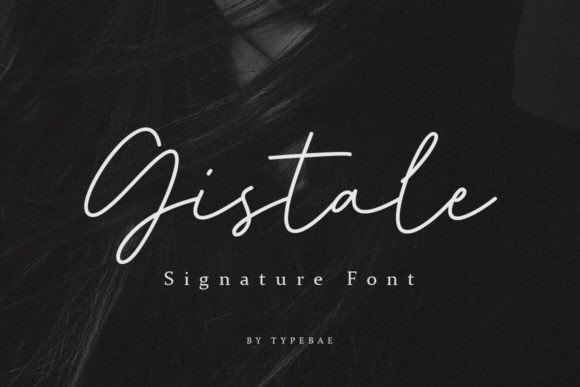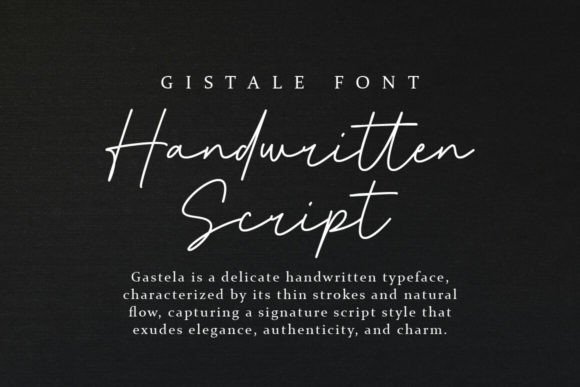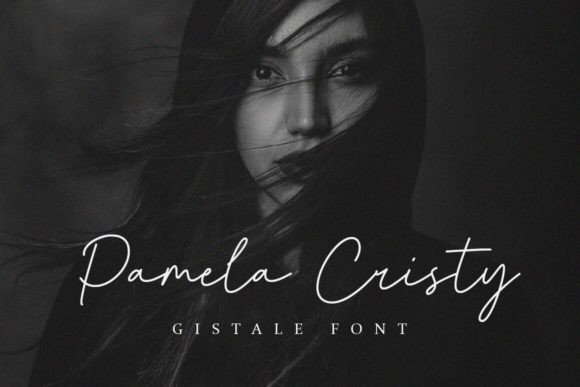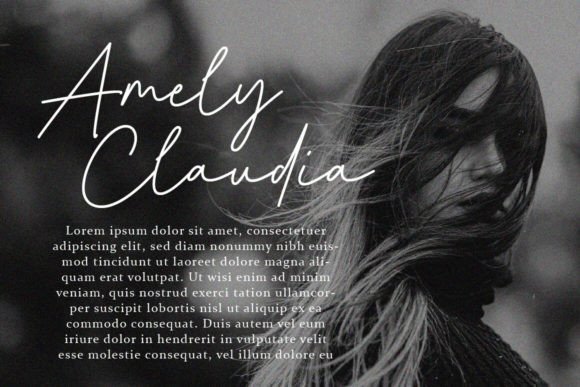
Gistale Font is a romantic and sweet calligraphy typeface with characters that dance along the baseline. It has a casual and yet elegant touch. It can be used for various purposes such as logos, wedding invitations, headings, t-shirts, letterhead, signage, labels, news, posters, badges, etc.